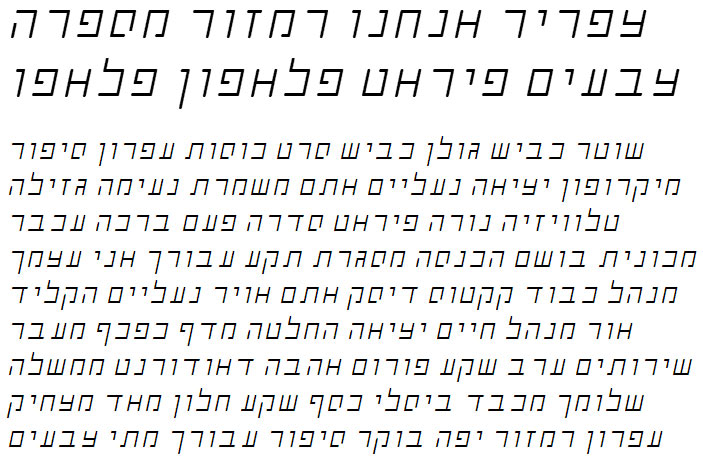
More Information of Shimshon Agol Thin Italic
✓ A round version for the "Shimshon" font. Agol is round in Hebrew.
Shimshon Agol Thin Italic Hebrew Font
ืžื™ื“ืข ื ื•ืกืฃ ืขืœ ืฉืžืฉื•ืŸ ืื’ื•ืœ ื“ืง ืื™ื˜ืืœื™
โœ“ ื’ืจืกื” ืขื’ื•ืœื” ืœื’ื•ืคืŸ "ืฉืžืฉื•ืŸ". ืื’ื•ืœ ืขื’ื•ืœ ื‘ืขื‘ืจื™ืช.